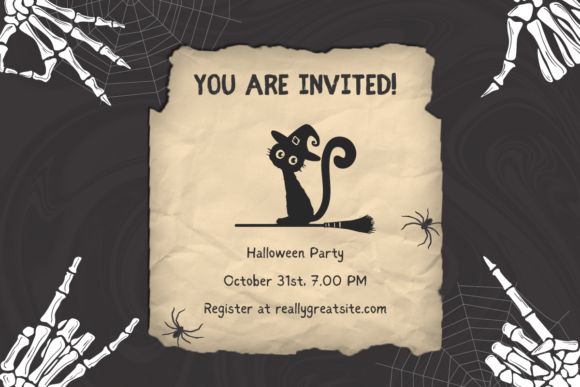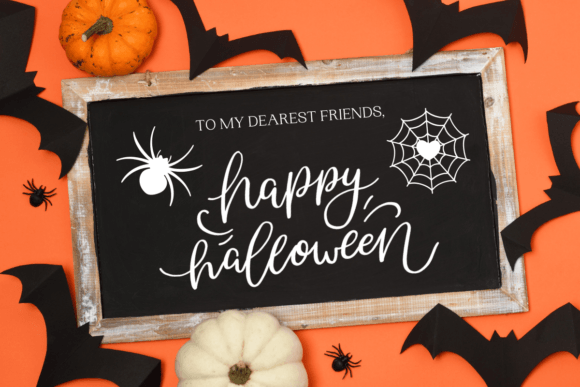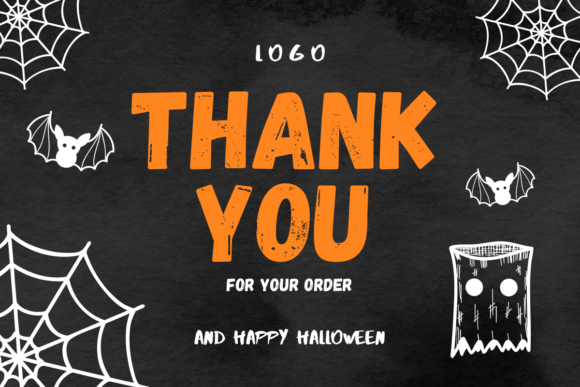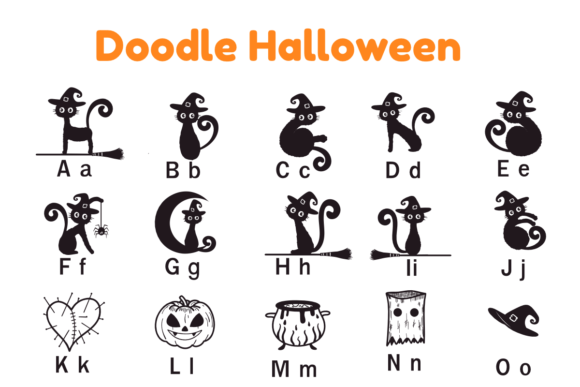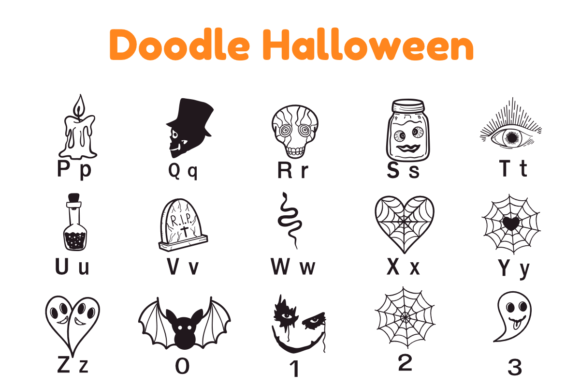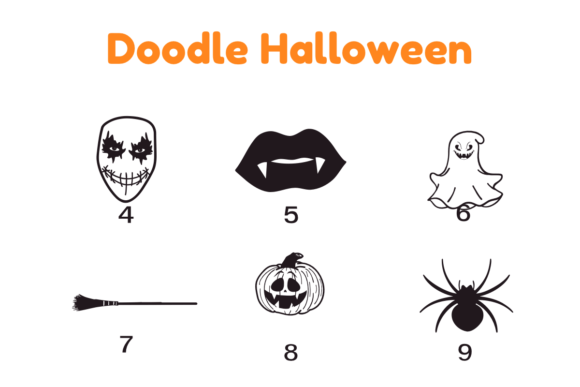
The Spooky Spirit of Doodle Halloween Font
As a creative person, there’s nothing quite like the thrill of brainstorming a new project. You’re scrolling through Pinterest, and suddenly, a spark of inspiration hits you – a spooky-themed wedding invitation, perhaps, or a haunted house decoration for the kids. Your mind starts racing with ideas, and you can’t wait to bring them to life.
That’s where Doodle Halloween Font comes in – a charming dingbats font with a spooky theme that’s sure to add a touch of magic to your creative projects. Whether you’re crafting a DIY decoration, designing a logo, or creating a wedding invitation, this font is the perfect companion to help you unleash your creativity.
For designers, Doodle Halloween Font is a valuable addition to their toolkit. Its unique, whimsical style can elevate any project and make it stand out from the crowd. So why not give it a try and see how it can help you create something truly unforgettable?
Doodle Halloween Font Key Features
- Unique Characteristics: The Doodle Halloween Font features a unique, hand-drawn design with intricate details and textures, adding a spooky and playful touch to any project.
Doodle Halloween Font Review
Overall, I think the “Doodle Halloween Font” has some great qualities that make it a fun addition to any Halloween-themed project. ✨ One of the things that stands out to me is its unique, playful style that’s perfect for adding a spooky touch to designs. ✨ The font’s irregular shapes and lines give it a hand-drawn feel that’s reminiscent of classic Halloween decorations.
Another aspect of the font that I appreciate is its versatility. ✨ It can be used for a wide range of applications, from party invitations to social media graphics. The font also comes in a variety of weights and styles, making it easy to customize to fit your design needs.
- ⚠️ Limited character set: The font may not have all the characters you need for more complex designs or international text.
- ⚠️ Not ideal for body text: While the font is great for headings and titles, it may not be the best choice for large blocks of body text due to its irregular shape and size.
- ⚠️ Limited scalability: The font may become distorted or lose its unique character when scaled up or down.
In conclusion, the “Doodle Halloween Font” is a great choice for designers looking to add a fun and playful touch to their Halloween projects. While it may have some limitations, its unique style and versatility make it a valuable addition to any design toolkit.
Combine the Doodle Halloween Font with other Halloween-themed graphics and elements for a spooky effect.
Use the font to create invitations, party decorations, and other Halloween-themed materials.
Halloween invitations and party decorations
Spooky social media graphics and posts
Halloween-themed greeting cards and gift tags